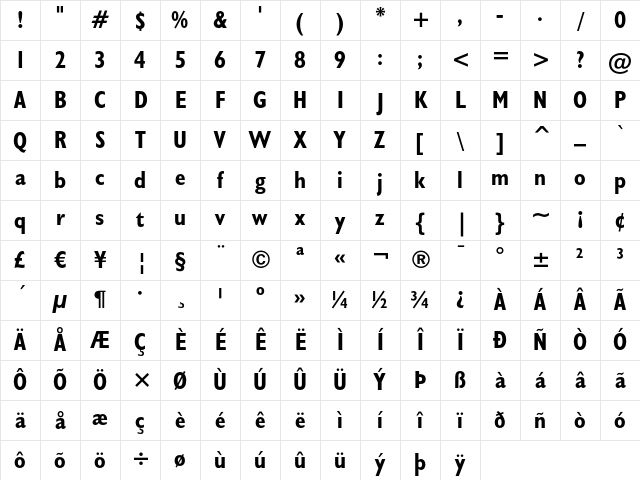
Humanist 521 Bold Condensed
Style: Bold Condensed
Humanist 521 Family
Humanist 521 Bold Condensed
Design Context for Humanist 521
Humanist 521 is a composed and adaptable typeface that performs quietly and consistently across a wide range of design contexts. Its bold stroke weight gives it real presence on the page. Its narrow stance lets it pack a punch even in space-constrained designs.